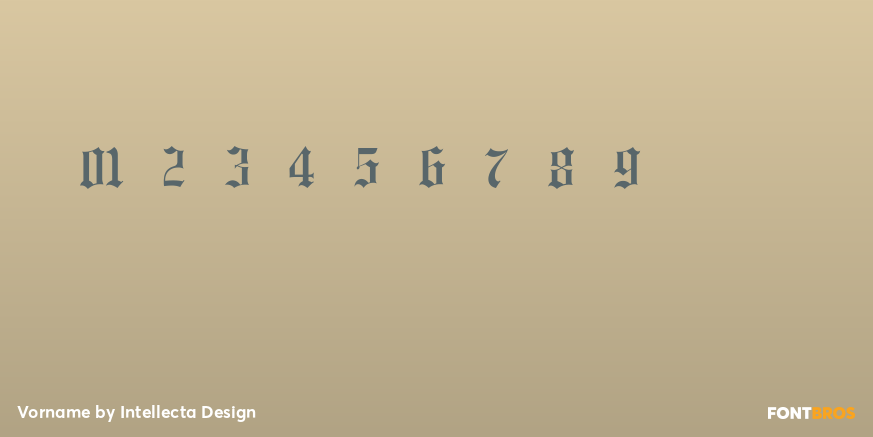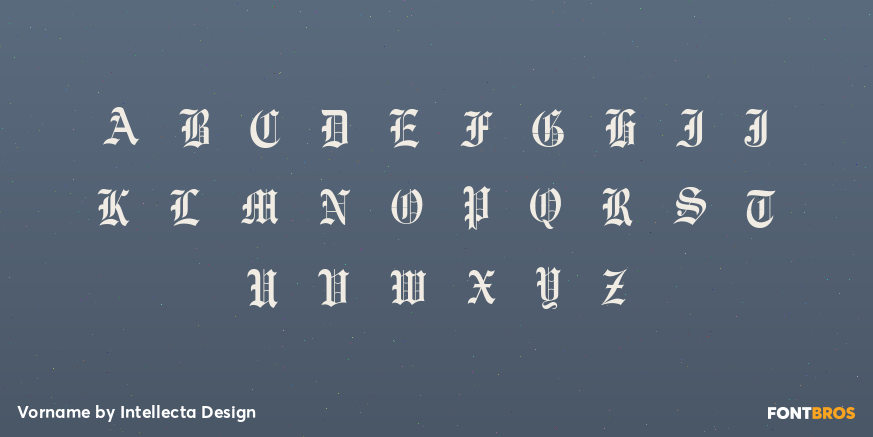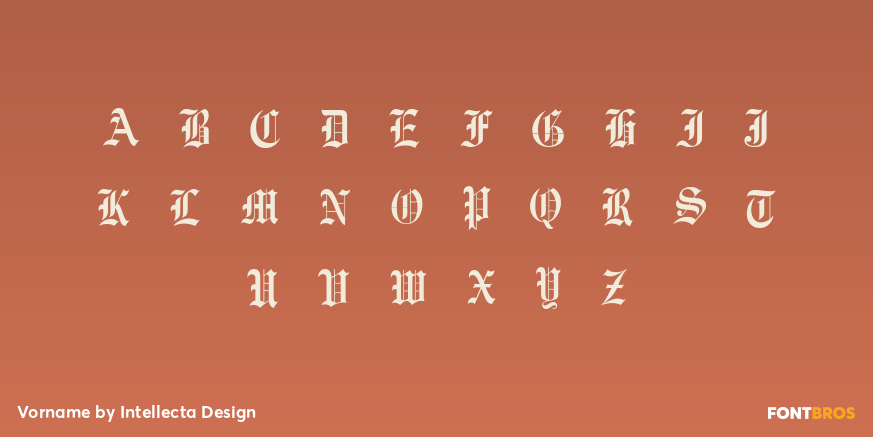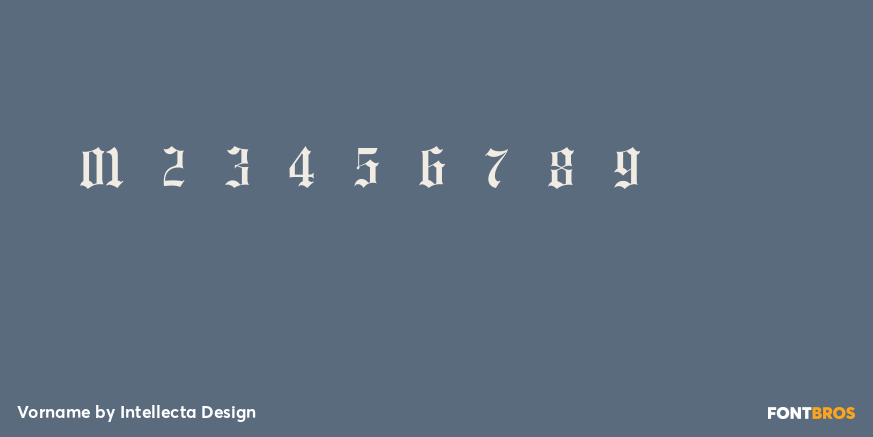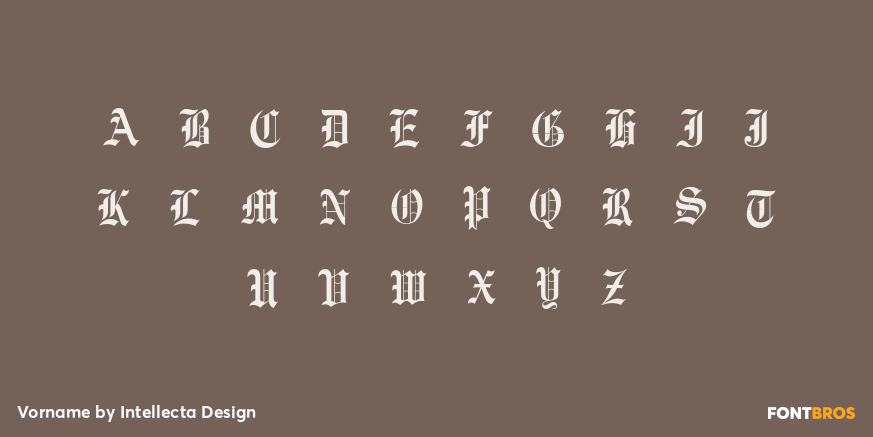
Vorname
Font Family by Intellecta Design
Vorname is a single-style display face from Intellecta Design with a bold blackletter voice and a distinctly medieval character. Its calligraphic structure, serif details, and ornate, intricate drawing give it a formal, traditional look that feels historic and richly decorative.
With its gothic flavor and vintage tone, this design is well suited to projects that call for atmosphere and visual drama. It can bring a strong period feel to posters, packaging, certificates, themed branding, signage, or other decorative display work where a more elaborate letterform is part of the message.
The family includes 1 font style: Vorname Regular. If you want lettering that leans historical rather than minimal, this face offers a distinctive old-world presence with plenty of ornamental appeal.